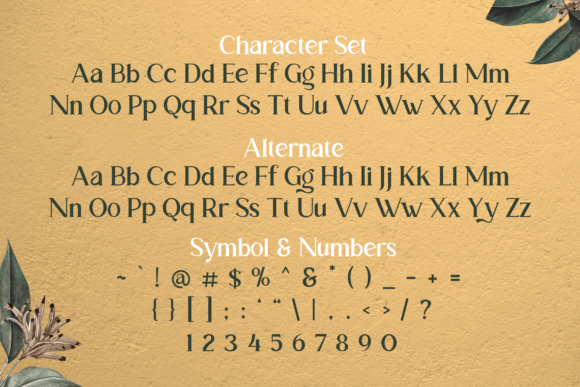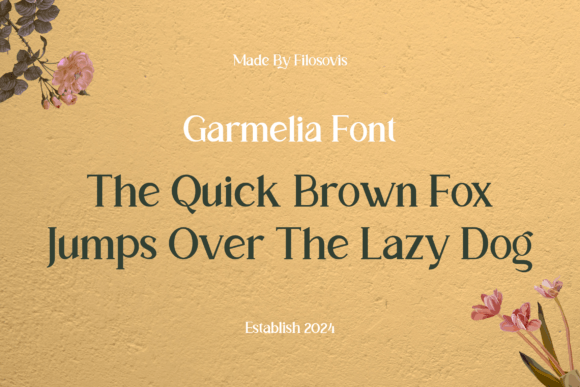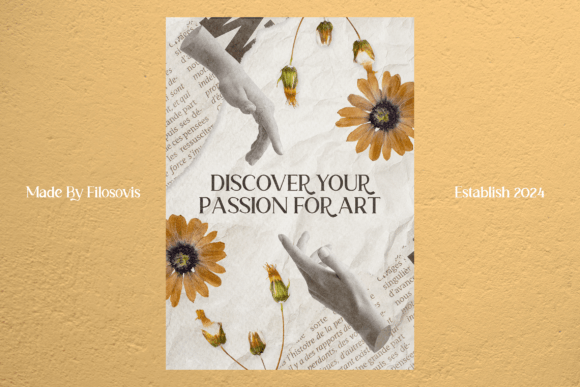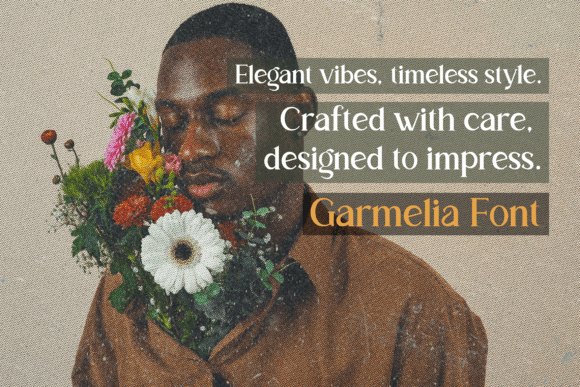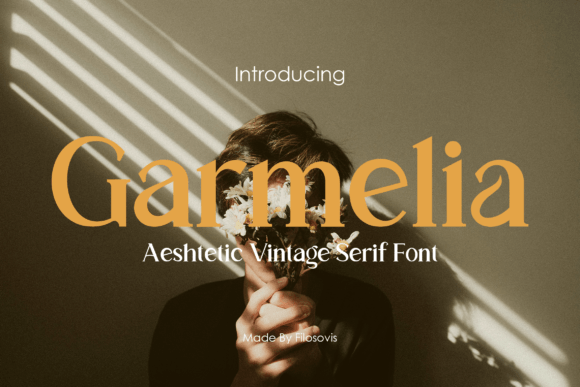
Garmelia Font: Adding a Playful Twist to Your Designs
In the world of typography, fonts play a crucial role in conveying the tone and personality of a design. For designers and crafters looking to add a touch of whimsy and charm to their projects, Garmelia Font is an excellent choice. This serif font is designed to bring a playful twist to any design, making it perfect for eye-catching headlines, vibrant posters, and playful branding projects.
The Unique Charm of Garmelia Font
Garmelia Font stands out from traditional serif fonts with its whimsical letterforms and unique charm. Each letter is carefully crafted to convey a sense of joy and playfulness, making it an excellent choice for designers who want to add a personal touch to their creations. Whether you’re working on a children’s book, a poster, or a branding project, Garmelia Font is sure to infuse your designs with personality and character.
Perfect for Eye-Catching Headlines and Posters
One of the key features of Garmelia Font is its ability to grab attention. The font’s playful and whimsical design makes it perfect for eye-catching headlines and posters. Whether you’re creating a poster for a children’s event or a headline for a blog post, Garmelia Font is sure to make your text stand out. The font’s unique charm and character will draw the reader’s attention and make your message more memorable.
Playful Branding Projects Made Easy
Garmelia Font is not just limited to posters and headlines; it’s also perfect for playful branding projects. The font’s whimsical design makes it an excellent choice for brands that want to convey a sense of fun and personality. Whether you’re creating a logo, a business card, or a website, Garmelia Font is sure to add a touch of playfulness and charm to your brand.
Infuse Your Creations with Joy and Personality
The best thing about Garmelia Font is its ability to infuse your creations with joy and personality. The font’s playful design makes it perfect for designers who want to add a personal touch to their projects. With Garmelia Font, you can create designs that are not only visually appealing but also convey a sense of fun and personality.
Key Features of Garmelia Font
- Serif font with a playful twist
- Whimsical letterforms and unique charm
- Perfect for eye-catching headlines and posters
- Ideal for playful branding projects
- Adds a touch of joy and personality to your designs
Tips for Using Garmelia Font
Here are some tips for using Garmelia Font in your designs:
- Use it for headlines and titles to grab attention
- Pair it with a simple font for body text to create contrast
- Experiment with different colors and textures to add depth
- Use it for branding projects to add a touch of personality
In conclusion, Garmelia Font is a unique and playful serif font that’s perfect for designers and crafters looking to add a touch of whimsy and charm to their projects. With its whimsical letterforms and unique charm, it’s ideal for eye-catching headlines, vibrant posters, and playful branding projects. Infuse your creations with joy and personality with Garmelia Font, and take your designs to the next level.